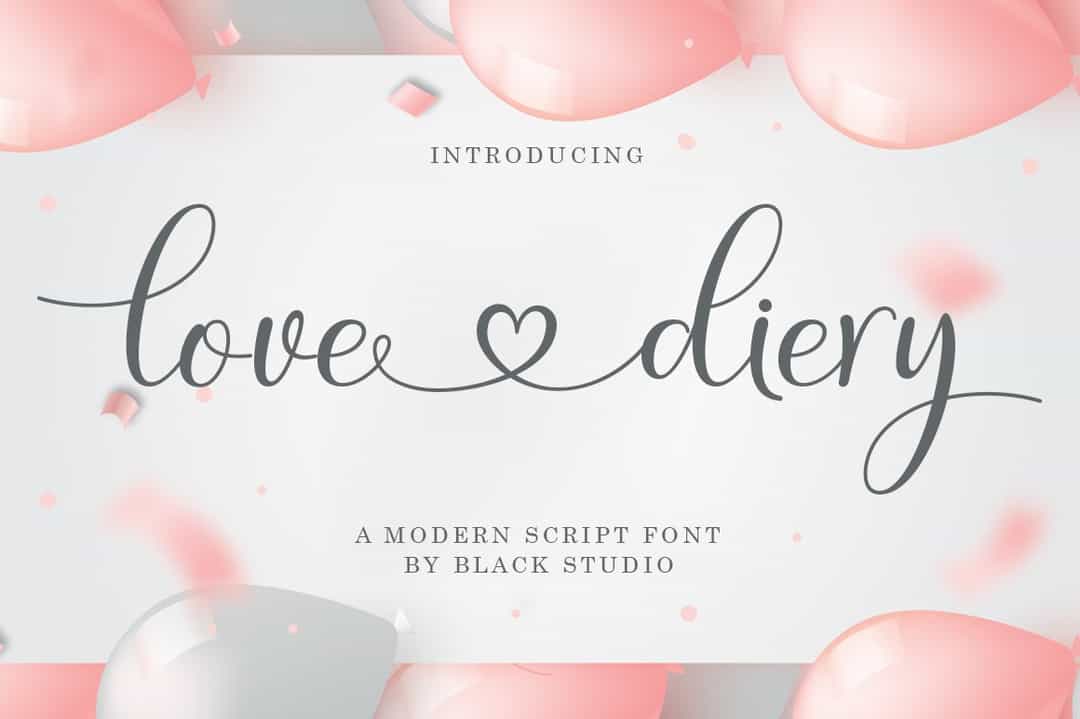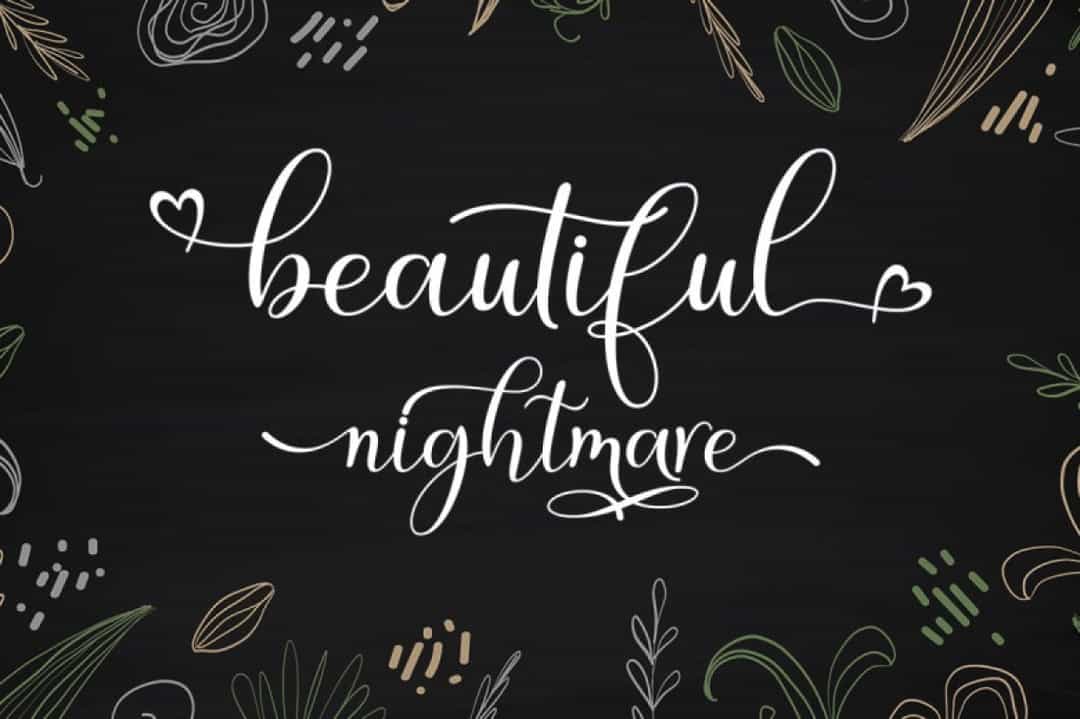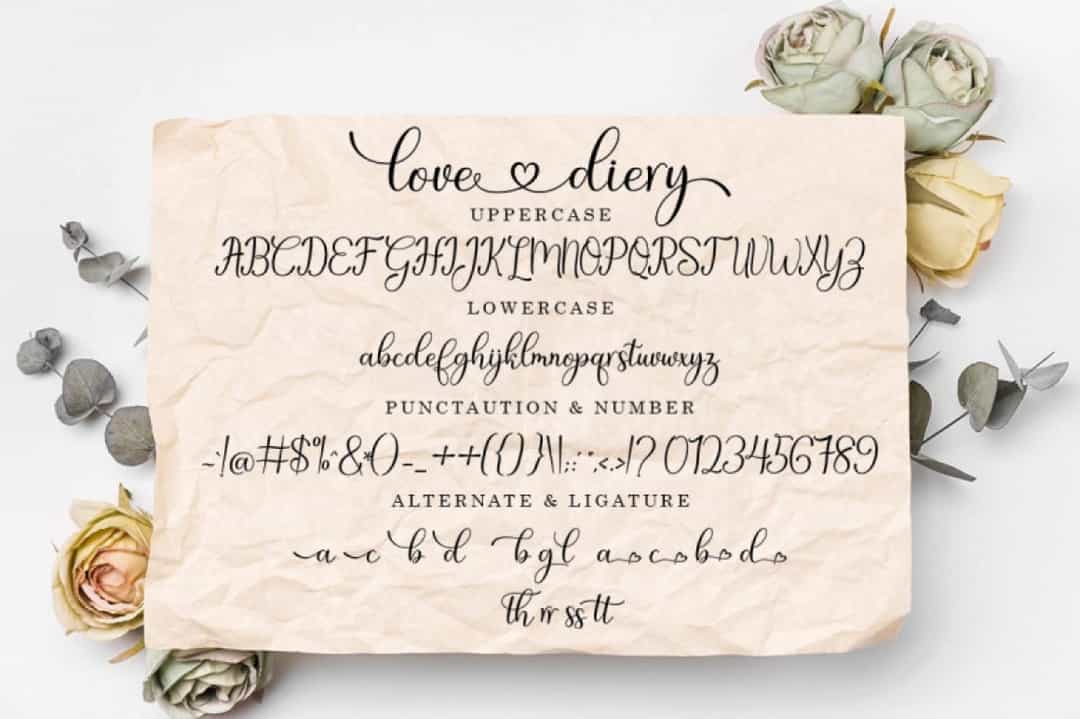
Love Diery is an elegant and graceful handwritten font with smooth flowing lines and stunning alternates and gorgeous glyphs that is PUA encoded for ease of accessing all characters and washes! With multiple baselines and smooth lines as well as stunning alternates and beautiful glyphs – Love Diery makes an excellent font choice!